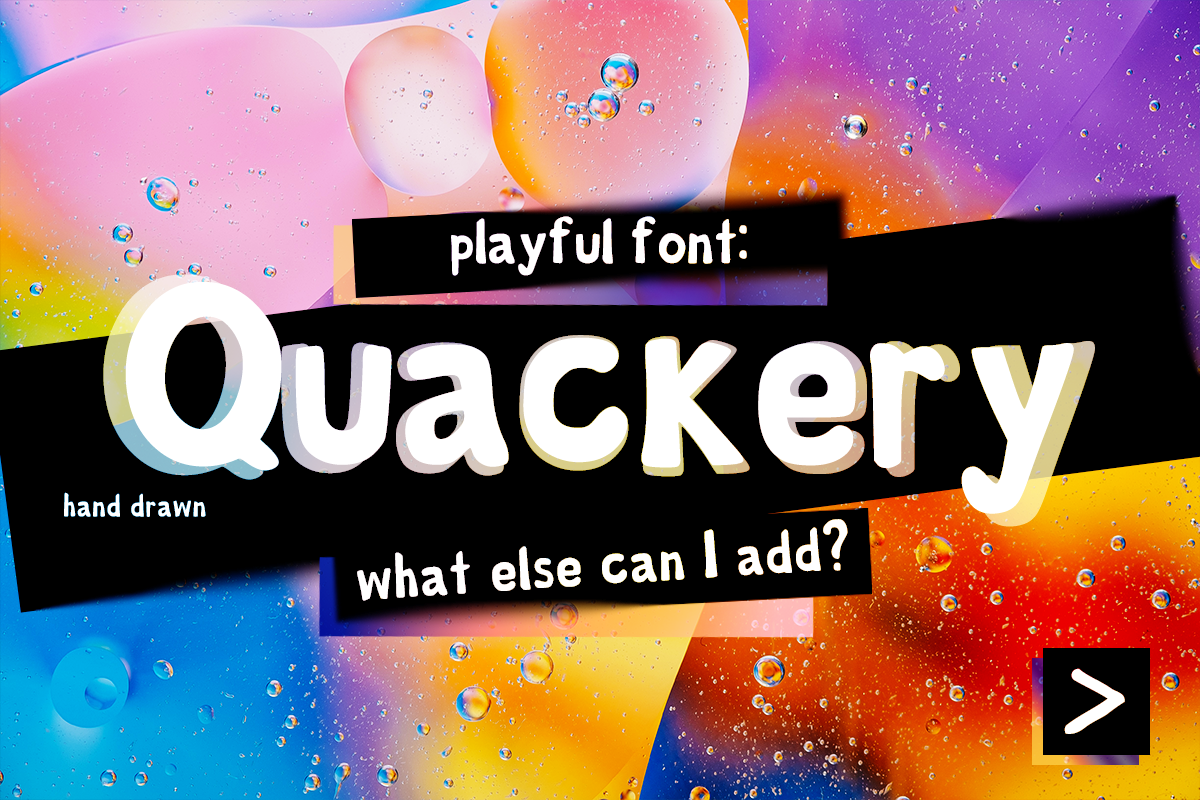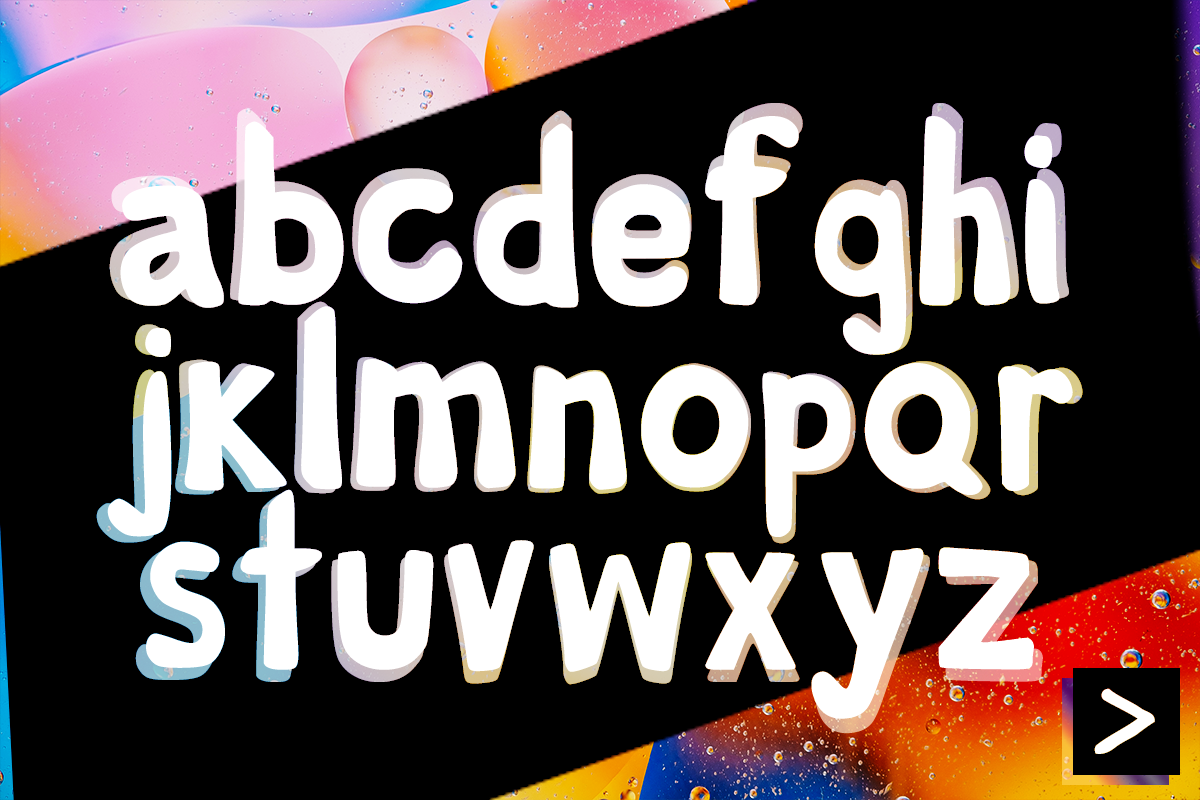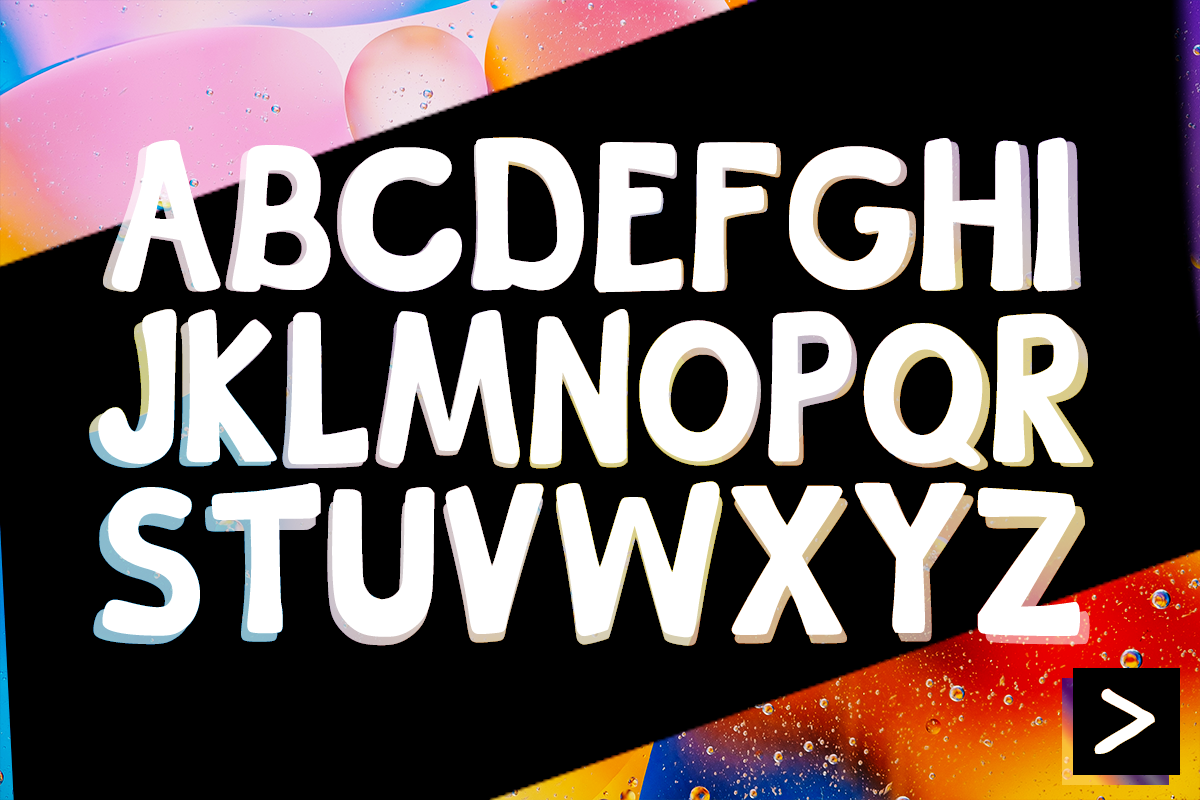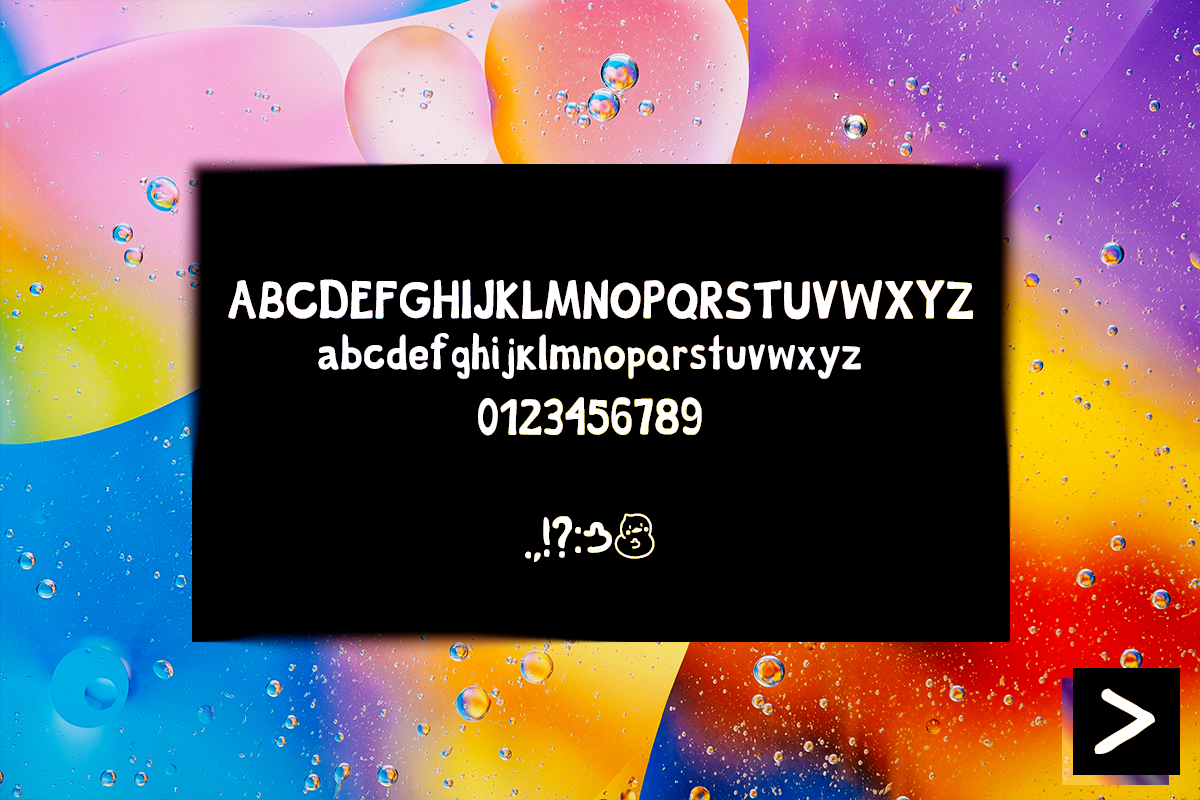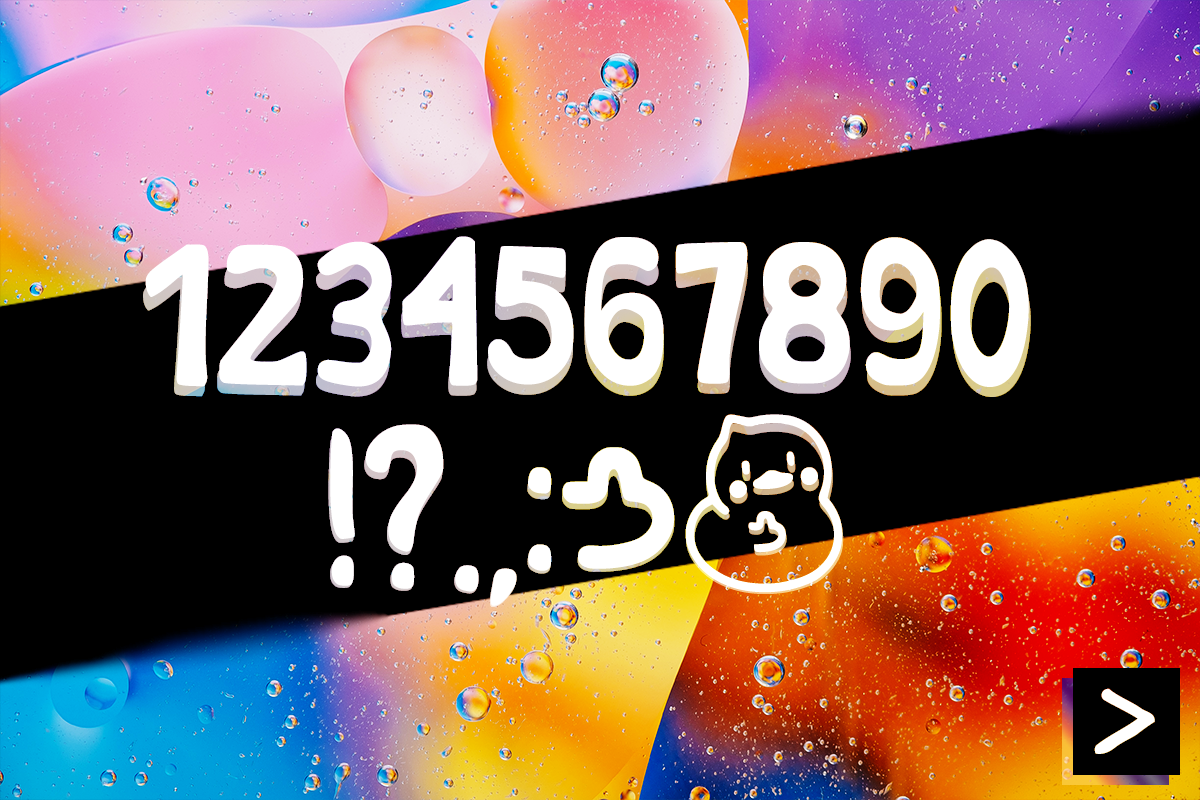
Quackery Fun Hand Drawn Font
Quackery Hand Lettered Font // for any creative and fun use! ✨ Fun, wacky, bold! Perfect for adding some ease to your design, great to use in books for children!
Great for your text posts, letters, thumbnail titles for your new youtube video, lists and also friendly for children's books!